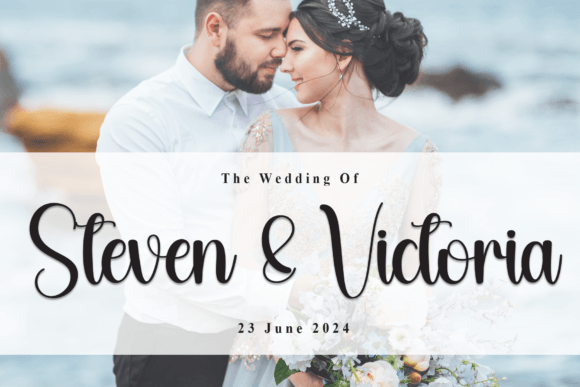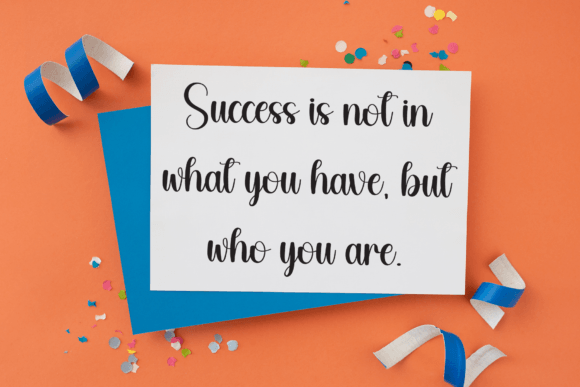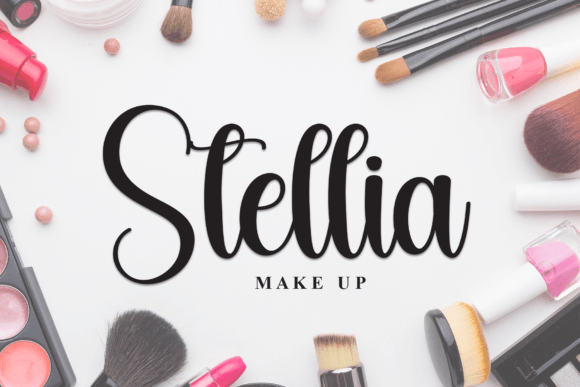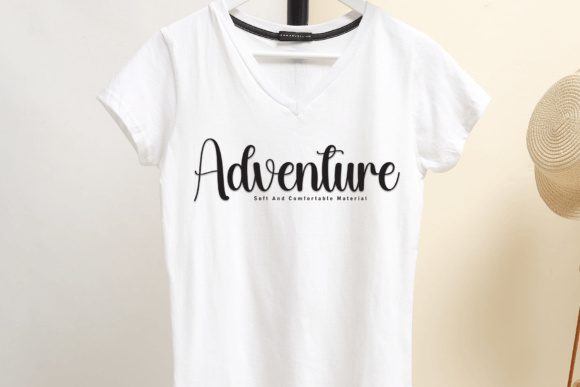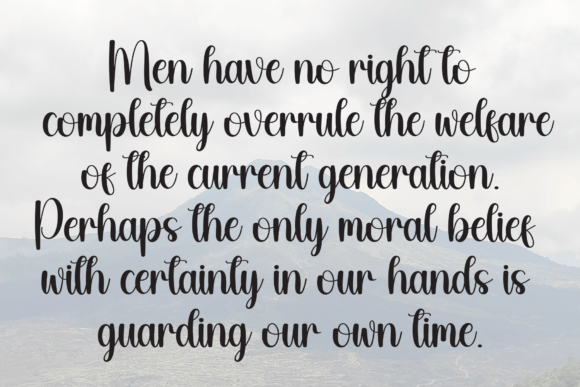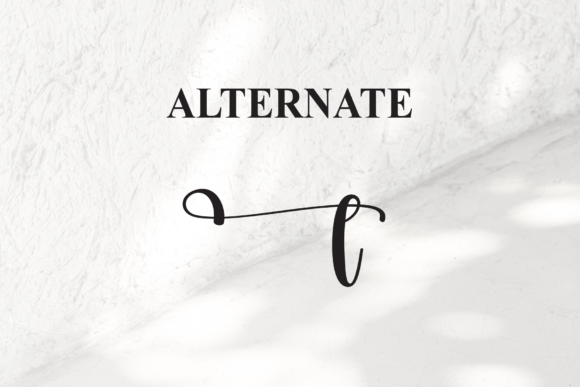
The Bright Font: A Timeless Handwritten Treasure for Designers
Have you ever been in the middle of a design project, and suddenly, you’re stuck on finding the perfect font? I recall a particularly frustrating moment when a client asked for a logo that exuded warmth and personality, but my usual go-to fonts just weren’t cutting it. That’s when I stumbled upon the Bright font, a lovely and timeless handwritten font that has since become a staple in my design toolkit.
An Honest Review of Bright Font
What I Love About Bright Font
- ✨ Unique and beautiful touch: Every letter in the Bright font has a distinct character that adds a personal touch to any design.
- ✅ Versatile: Bright font is perfect for creating eye-catching logos, branding, and quotes.
- 💫 Timeless: The handwritten style of Bright font is classic and won’t go out of style anytime soon.
- 🎨 Great for designs that need a personal touch: Whether you’re working on a project that requires a human touch or want to add some personality to your designs, Bright font is an excellent choice.
While Bright font is an excellent choice for many design projects, there are a few things to keep in mind:
- ⚠️ Limited availability of stylistic alternates: While Bright font does offer some stylistic alternates, it’s not as extensive as some other fonts on the market.
- 🤔 May not be suitable for body text: Due to its handwritten nature, Bright font may not be the best choice for large blocks of body text.
The Story Behind Bright Font
Bright font was designed with the intention of creating a timeless and versatile handwritten font that would add a personal touch to any design. The designer, inspired by classic handwritten scripts, aimed to create a font that would be both elegant and approachable. With its unique and beautiful touch, Bright font has become a popular choice among designers and crafters.
Q: What is Bright font?
A: Bright font is a lovely and timeless handwritten font perfect for creating eye-catching logos, branding, and quotes.
Q: What type of designs is Bright font best suited for?
A: Bright font is great for designs that need a personal touch, such as logos, branding, and quotes. It’s also suitable for designs that require a human touch, such as invitations, greeting cards, and social media graphics.